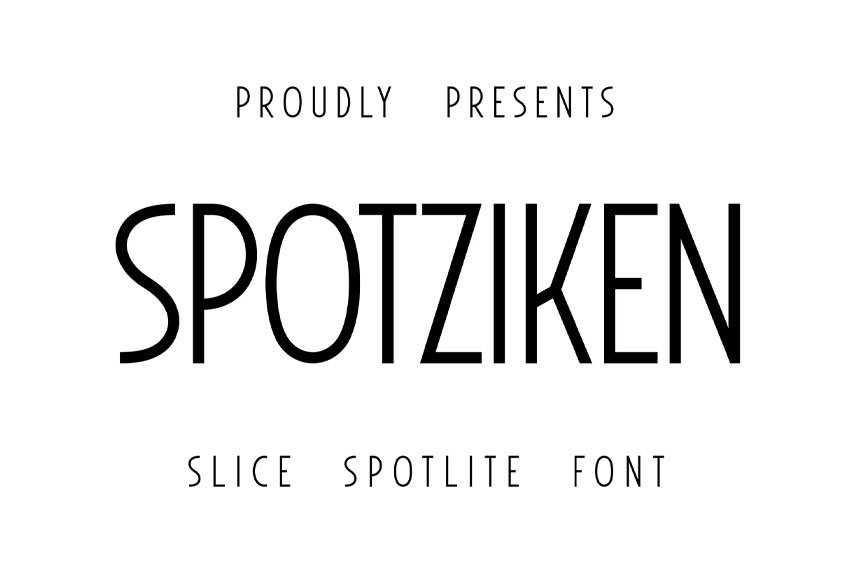
Spotziken Font Introducing our delightful light font specifically designed to captivate your audience in product descriptions.
The unique curvature of the letter ‘S’ in this font exudes a sleek elegance, making it an optimal choice for descriptions of haircare products and similar items. Cherish the charm and artistic flair the font brings to your copy.